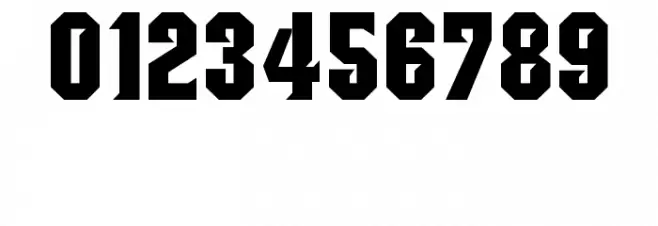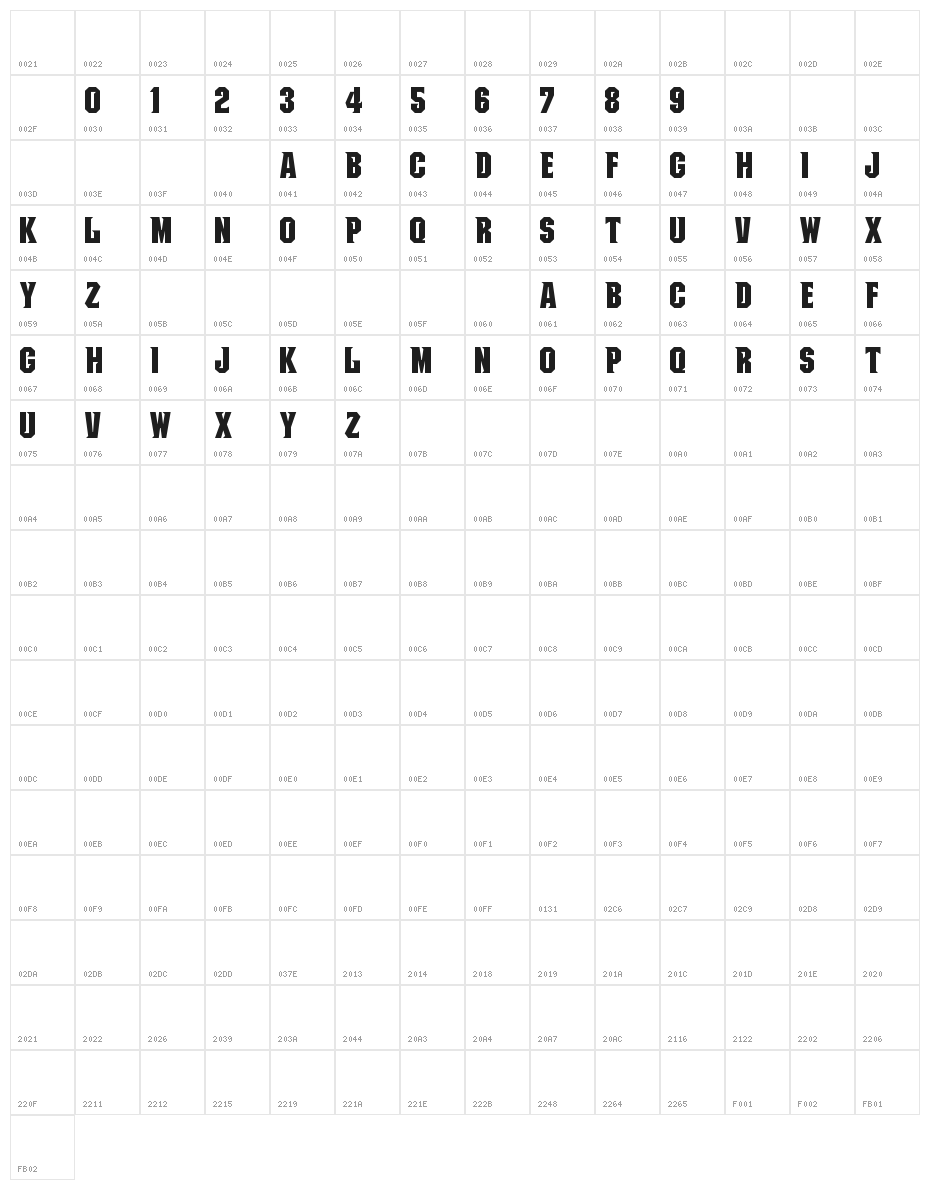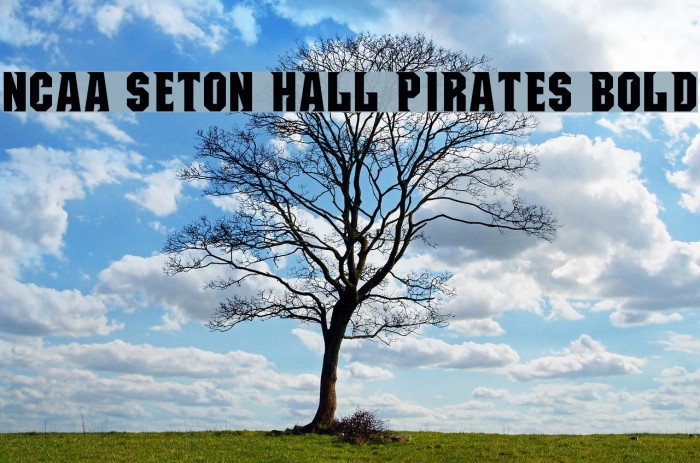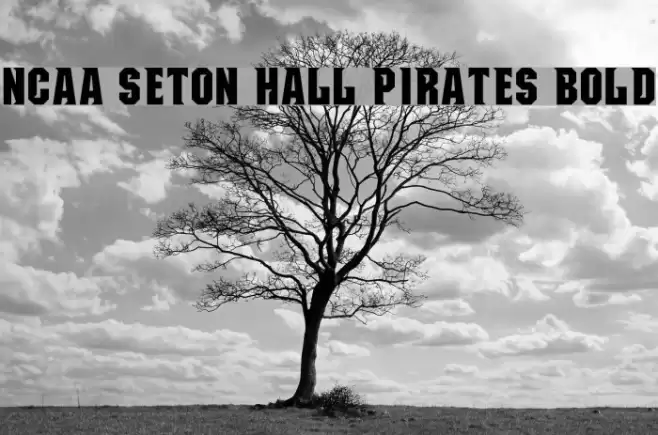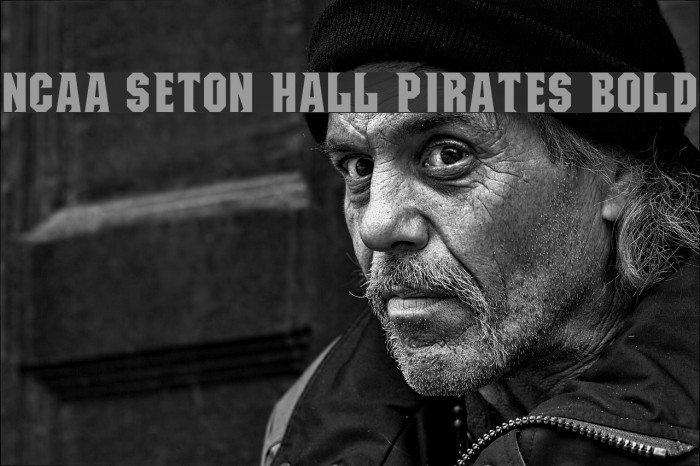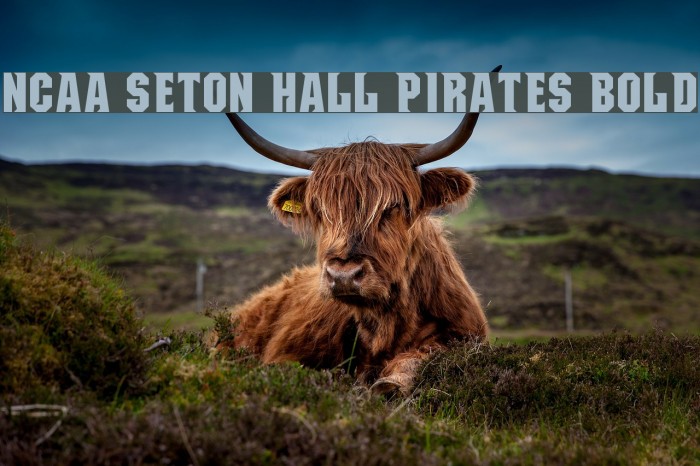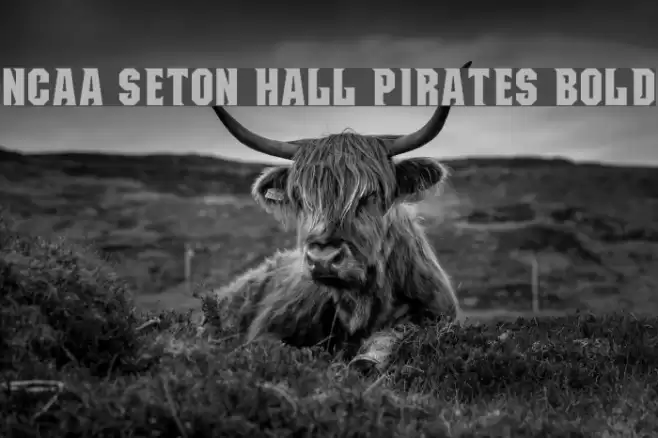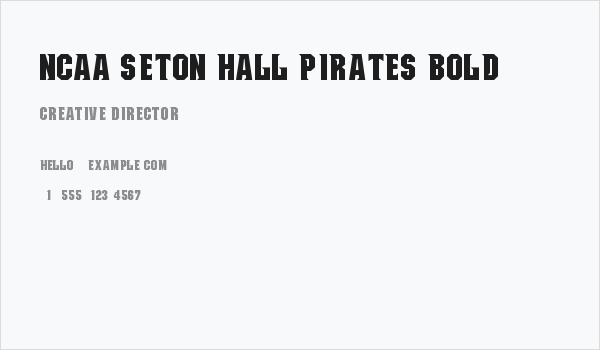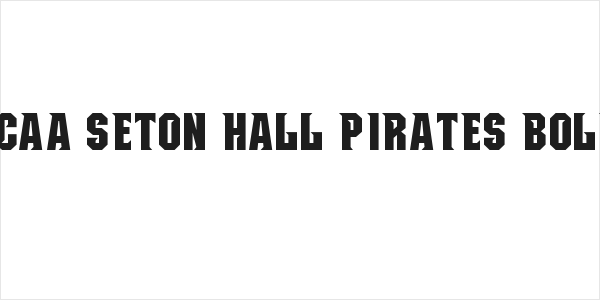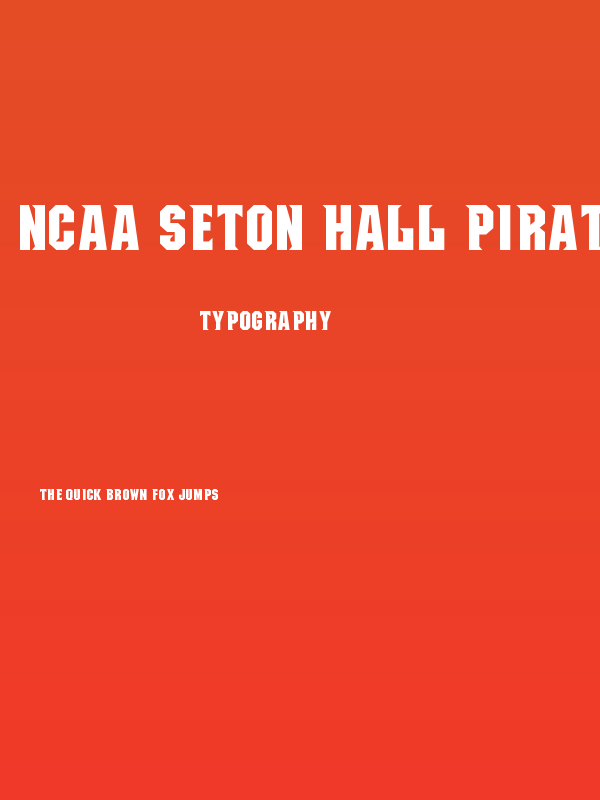
NCAA Seton Hall Pirates Bold Font
NCAA Seton Hall Pirates Bold Description
This font features a bold and robust design with strong geometric shapes and sharp angles. The characters are blocky and have a distinct collegiate or sports team aesthetic, making them highly recognizable and impactful. The uppercase letters are particularly striking, with a uniform height and width that create a cohesive look. The numbers follow the same bold style, ensuring consistency across all characters. The font's design is ideal for conveying strength and determination, making it suitable for athletic and competitive contexts.
| Proposed Projects | Ideal for sports team branding, athletic event posters, merchandise, and logo design. |